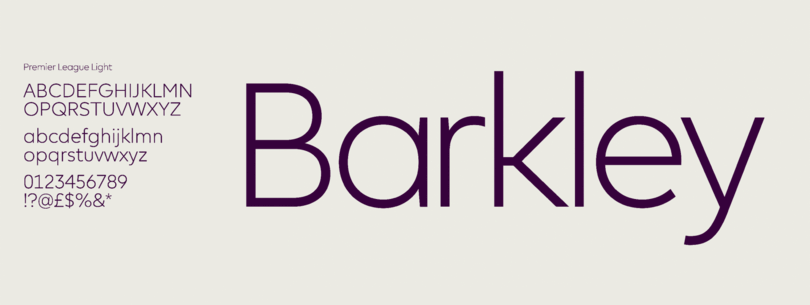
The challenging game of designing for sports.
「 While it’s easy to criticize some typographic missteps, the truth is that designing for sports is more complicated than some may think. 」
The World Cup is here again, which means the eyes of the world are zeroed in on some of the planet’s best footballers—and their jerseys. Some of this year’s jerseys have caused a stir, with many observers questioning the legibility of the names and numbers on the back.
But while it’s easy to criticize some typographic missteps, the truth is that designing for sports is more complicated than some may think.
Wild or traditional?
With exceptions, sports fonts fall into two general categories. Sometimes teams will choose something wild in the hopes of standing out. Think: a font that looks like a lightning bolt, or that has ragged edges to evoke a savage animal, for example.
The alternative is to choose something very traditional. Think of those traditional blocky numbers on the back of so many jerseys. Octagonal shapes and simple slab serifs are easy to read, easy to see on the TV, and quite frankly easier to sew onto a jersey than curved or uneven letterforms.
“Wild” fonts may look good in a logo but can easily fall apart in real-life applications, such as a jersey. Sometimes it takes decades to find the right balance, as in the case of the National Hockey League’s Tampa Bay Lightning, who went through several jersey iterations before settling on a lasting design.
This, of course, is the general challenge of type design. How do you create interesting and unique variations without deviating too far from the traditional shapes needed for legibility? You can only alter an “R” in its design so much before it no longer looks like an “R.”
「 How do you create interesting and unique variations without deviating too far from the traditional shapes needed for legibility?” 」
At the same time, those traditional proportions might be cumbersome in a very long player’s name. But when designed thoughtfully, perhaps slimmed down or paired with a fresh logo or contemporary font, these letterforms can look clean and modern while still evoking “sports” in all its glory.
Designing at speed
Sport is all about motion, so fonts need to be reasonably legible as they zip by on the field, ice, or on television. Back in the nineties, the New York Islanders hockey team experimented with a new design featuring names and numbers that followed a curved line. Turns out this isn’t the easiest thing to read on the back of a moving hockey jersey, and needless to say, this experiment only lasted three seasons (the fisherman-themed rebrand was unpopular in general).
And while most font considerations focus on the fan experience, speed is actually a gameplay issue. Players, coaches, and referees need to know who is involved in the play. They should be able to glance at a ‘1’ and know immediately that it’s a ‘1’ and not a ‘7,’ for example, and do so amidst the hectic, high-stakes atmosphere of a game.
Beyond the playing field
Yes, the names and numbers on player jerseys are important, but let’s not forget that major league teams and league associations are global branding powerhouses.
Fans all over the world watch the games, buy merchandise, and follow their favorite teams online, so the font or font system needs to transcend those myriad touchpoints. That was exactly the challenge presented when Monotype developed a new typeface for the Premier League, a truly international brand with followers in every corner of the globe.
Different weights and styles allow Premier League to use its typeface on everything from mobile apps to apparel
“We knew that it would be used a lot on TV and mobile, so it was essential that numbers be different and distinct,” says Monotype’s Toshi Omagari, who developed the font.
Premier Sans needed to be a workhorse that could cross every touchpoint—TV, broadcast, print, website, apps, and everything in the grounds. And not only did the typeface need to be able to work at a large size, but it needed to function at a much smaller scale when used in tables, and as condensed cuts to allow for especially long player names.
In the end, as with all brands the success of a design ties back to the customer experience—in this case, on TV or online, in person at the arena or stadium, and at the sporting goods store. The right font choice means a team’s fans can wear their colors proudly, regardless of wins and losses (well, maybe not every loss).